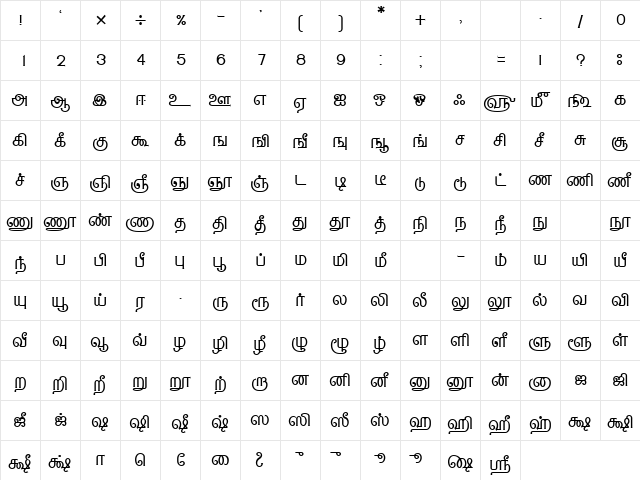
Shree-Tam-1361 Normal Font Preview
Shree-Tam-1361 Normal
Design Context for Shree-Tam-1361 Typeface
Shree-Tam-1361 is a composed and adaptable typeface that performs quietly and consistently across a wide range of design contexts.
Pro Tip: Use Shree-Tam-1361 in both headline and body roles to test its range before committing to a single application.